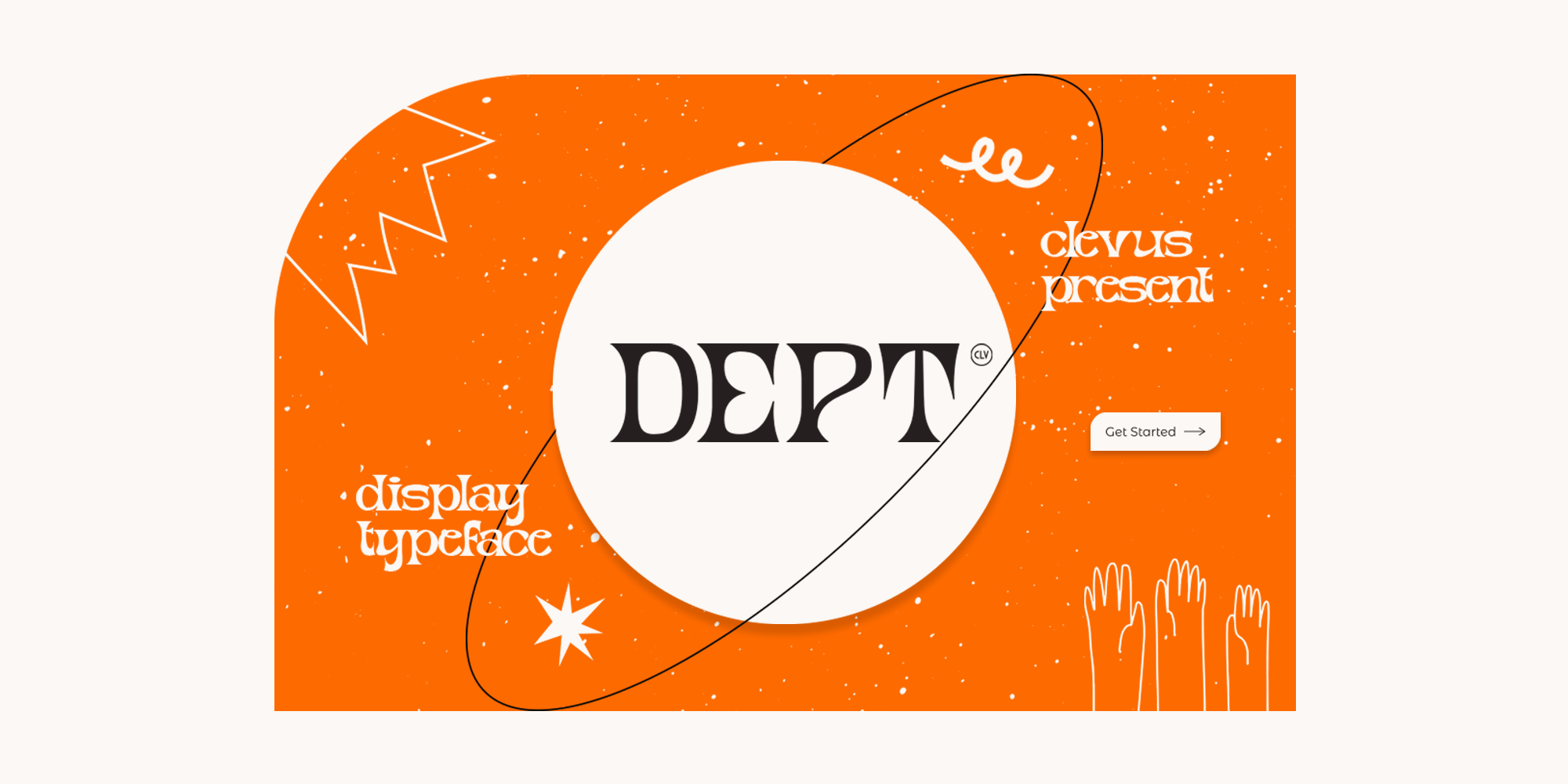
Dept Font is perfect for governmental communications, department signage, institutional branding, official documents, municipal materials, administrative graphics, bureaucratic publications, and departmental display typography.
What makes Dept Font exciting is its institutional departmental character that embodies governmental authority and administrative efficiency through official letterforms and bureaucratic appeal. This authoritative typeface features departmental construction, institutional details, and official personality that captures the essence of government departments and administrative systems, making it ideal for projects seeking to communicate official authority, institutional credibility, and departmental professionalism with authentic governmental appeal and administrative sophistication.
The Dept Font family includes Light, Regular, Medium, and Bold weights, each maintaining the characteristic institutional authority and departmental appeal that define this distinctive typeface's governmental personality and administrative sophistication.
Dept Font Free Download provides access to a typeface that perfectly captures the essence of governmental departments and institutional administration. This official font brings authentic departmental aesthetics to contemporary projects, making it essential for government agencies, municipal departments, and institutional organizations targeting audiences requiring official communication and administrative clarity. The font's departmental construction and institutional details ensure immediate recognition of authority and credibility while its distinctive character creates trustworthy connections among citizens seeking reliable governmental services and official information. Whether designing government department materials, municipal communications, or institutional documentation projects, this font delivers the governmental authenticity and departmental sophistication that official audiences expect. Its institutional foundation and departmental symbolism make it indispensable for projects celebrating public service, governmental transparency, and the essential role of departmental administration, ensuring communications resonate with audiences who value the institutional reliability, governmental authority, and administrative professionalism that define authentic departmental excellence and official government communication across diverse municipal and institutional applications.